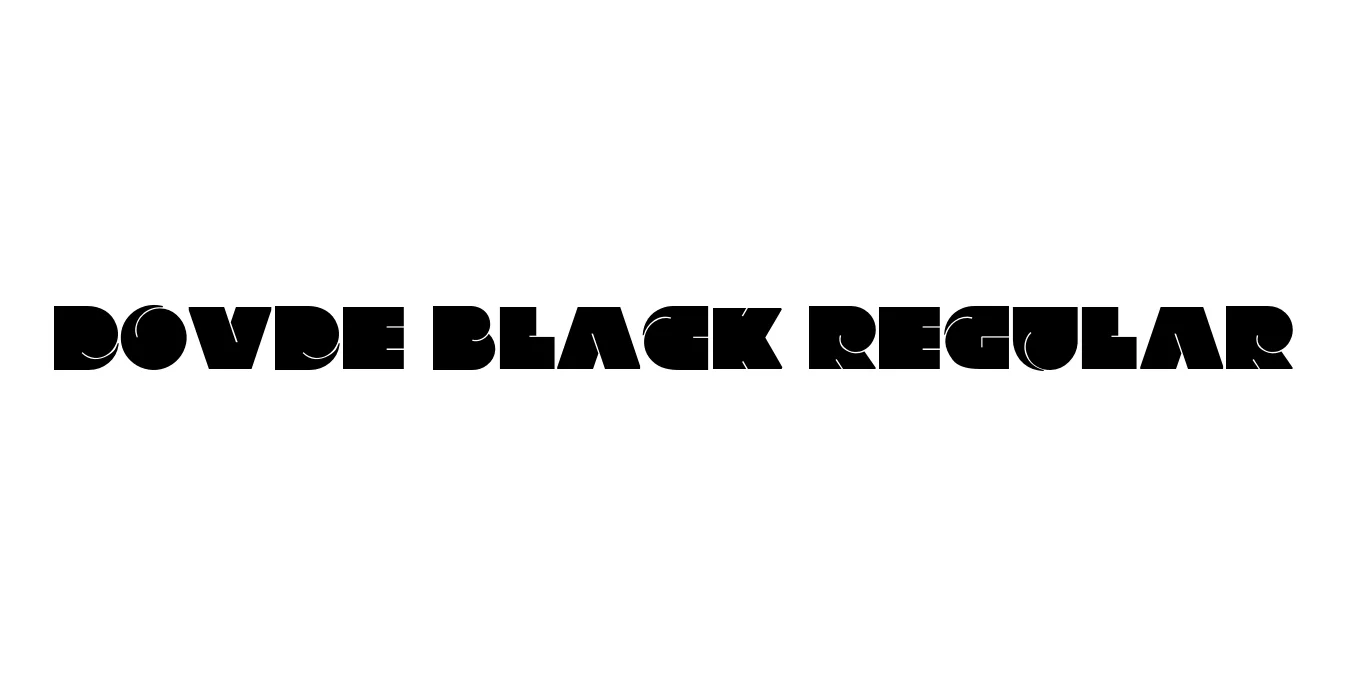
Dovde Black Regular
Designed by Eko Bimantara
Dovde Black Regular is a contemporary sans-serif typeface characterized by its strong geometric foundation and minimalist design language. Created by Eko Bimantara, this font family was developed to provide a clean and high-impact aesthetic for modern visual communication. The Black weight emphasizes thickness and presence, making it a powerful tool for designers looking to command attention through bold typography.
The typeface features well-balanced proportions and refined curves that ensure legibility even at large display sizes. Its modernist approach makes it versatile across various mediums, from digital interfaces to high-end print editorial. Dovde Black Regular serves as an excellent choice for projects that require a sophisticated yet powerful voice, bridging the gap between classic Swiss design and contemporary digital trends.
Dovde Black Regular Best Uses
Perfect for creating strong, memorable visual identities and wordmarks.
Ideal for bold titles in magazines, websites, and editorial layouts.
High visibility and impact for large-scale advertising and event promotion.
Great for eye-catching graphic posts and high-contrast social media imagery.